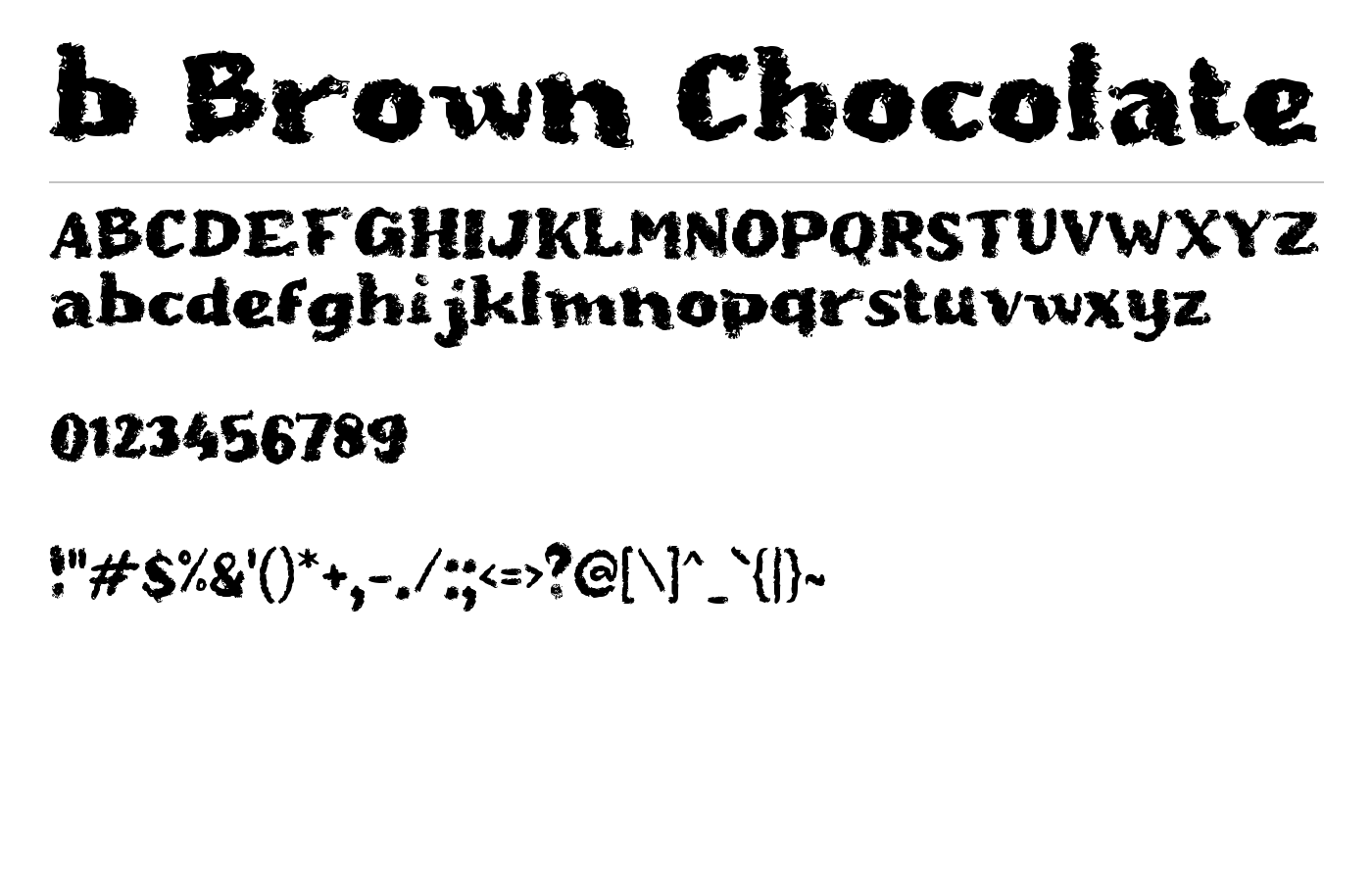
Brown Chocolate is a bold, textured serif font that features rough, irregular edges giving it a handmade, rustic feel. Its moderate width and medium x-height, combined with the distressed stroke style, provide a playful yet sturdy appearance perfect for creative branding, packaging, and eye-catching headlines. This font works well where a casual, artisanal vibe is desired, adding character and warmth to designs.
b Brown Chocolate Font
About b Brown Chocolate Font